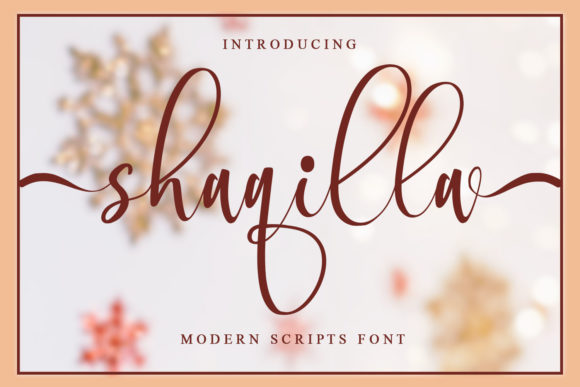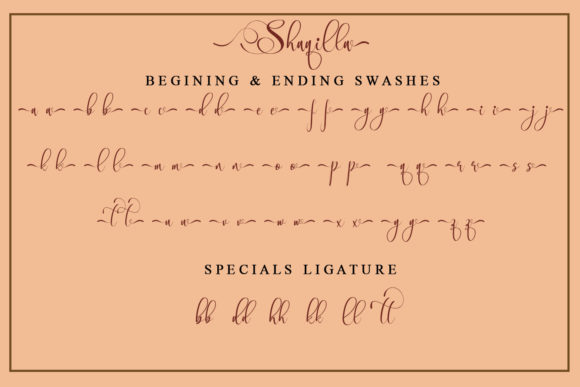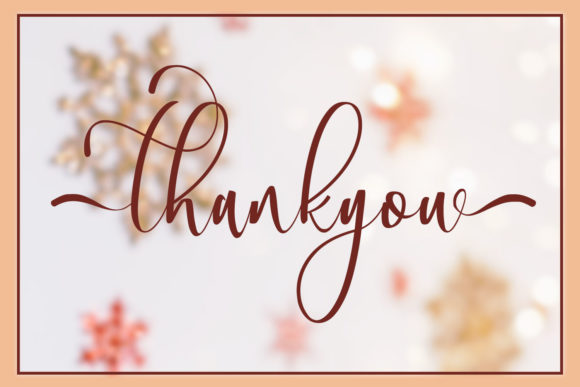
About Shaqilla Font
Shaqilla is an elegant and flowing handwritten font. It features an incredibly classic style, while still keeping a friendly feel. Fall in love with its authentic feel and use it to create gorgeous wedding invitations, beautiful stationary art, eye-catching social media posts, and cute greeting cards. This font is PUA encoded which means you can access all of the cute glyphs and swashes with ease!